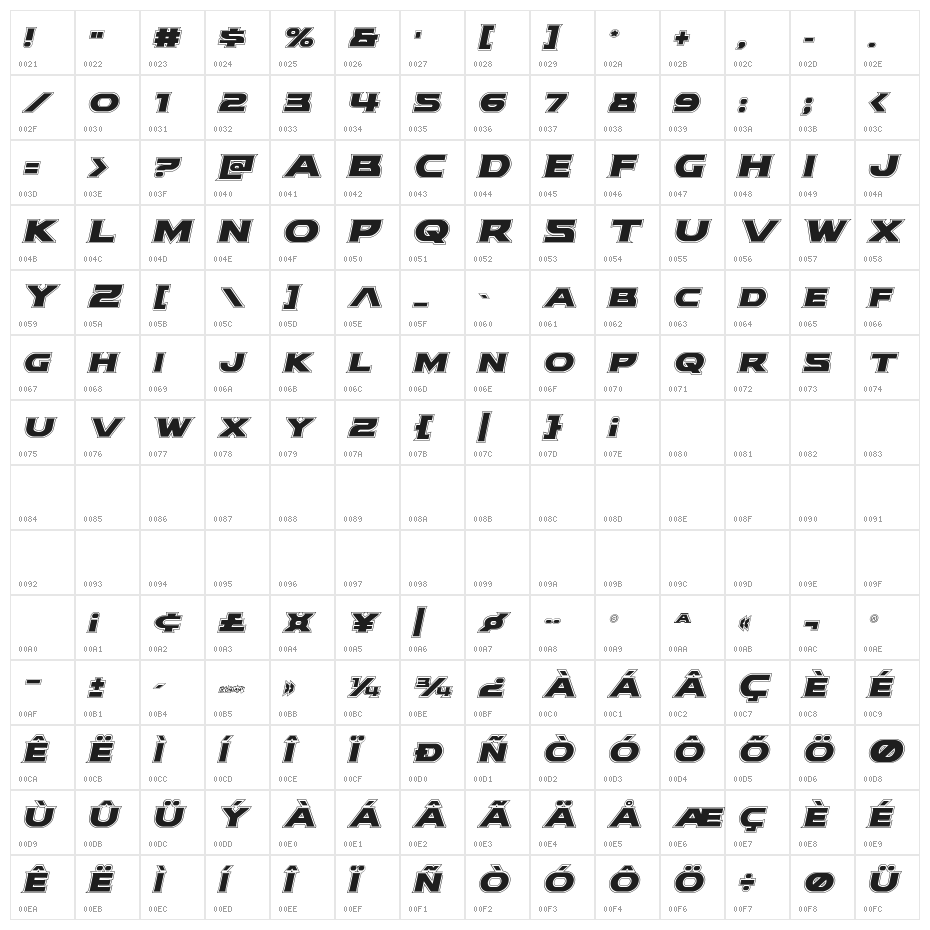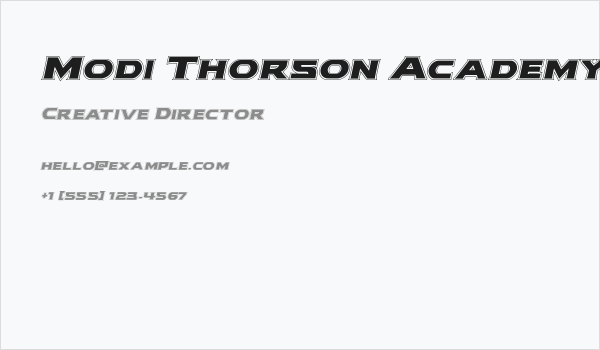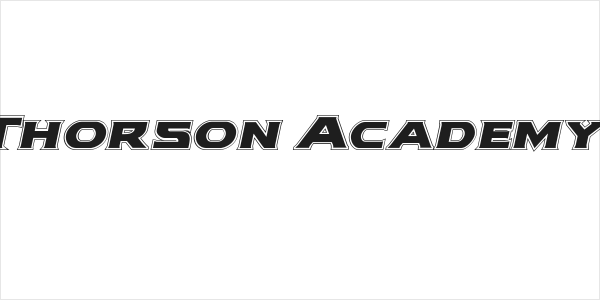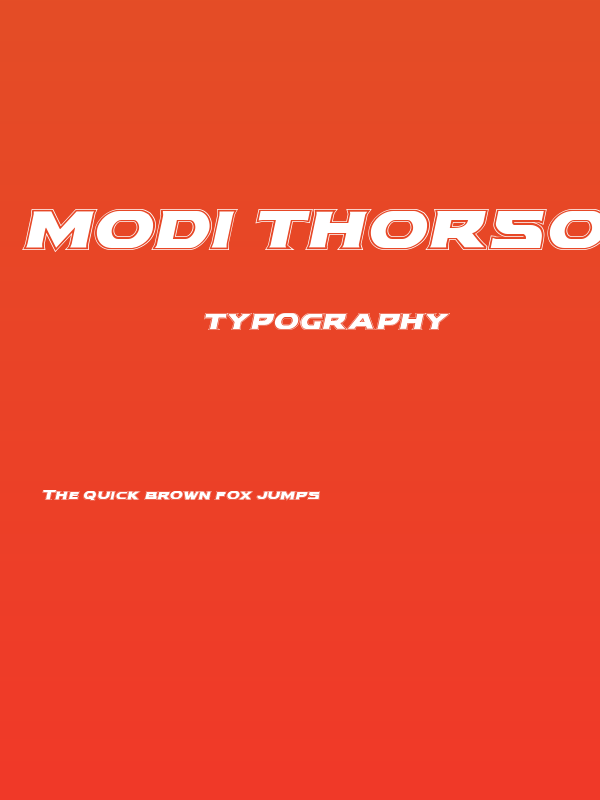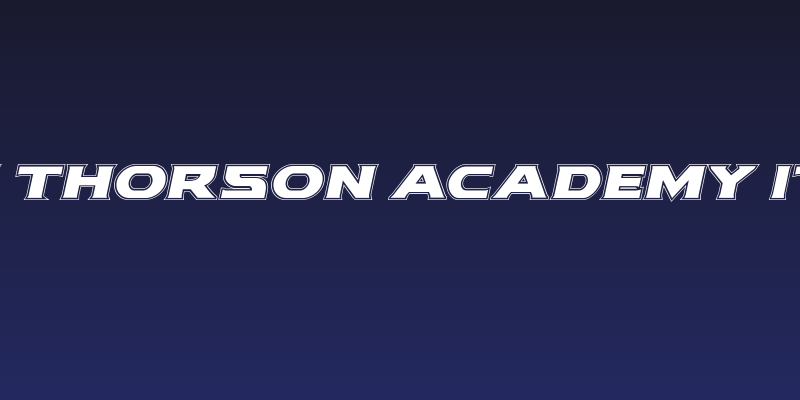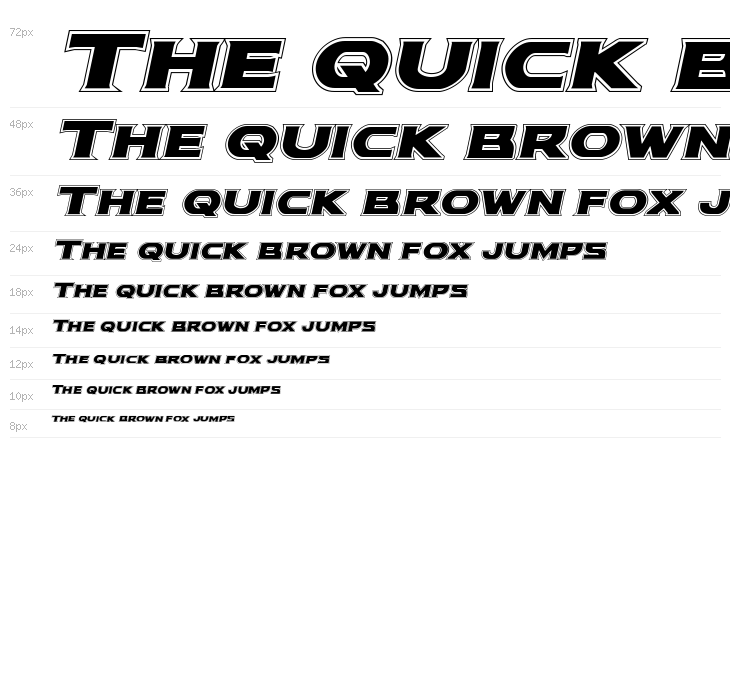
Modi Thorson Academy Italic Font
Modi Thorson Academy Italic Description
This font features a bold, italicized style with a strong, dynamic presence. The characters are designed with a three-dimensional effect, giving them a shadowed appearance that adds depth and emphasis. The strokes are thick and consistent, providing a robust and impactful look. Each letter is slightly slanted, enhancing the italic effect and contributing to a sense of motion and energy. The font's design is modern and sleek, making it suitable for projects that require a bold statement. The spacing between characters is tight, which helps maintain a cohesive and compact appearance.
Proposed ProjectsIdeal for sports team logos, dynamic posters, video game titles, and branding that requires a strong visual impact.